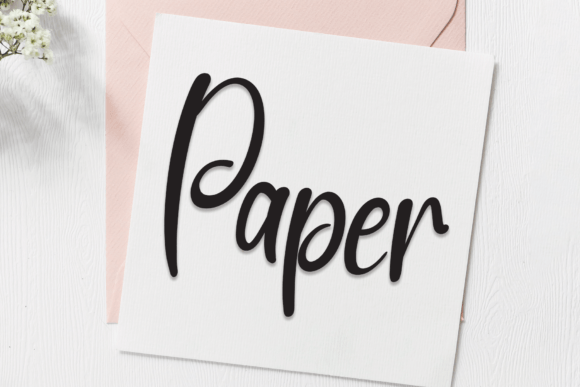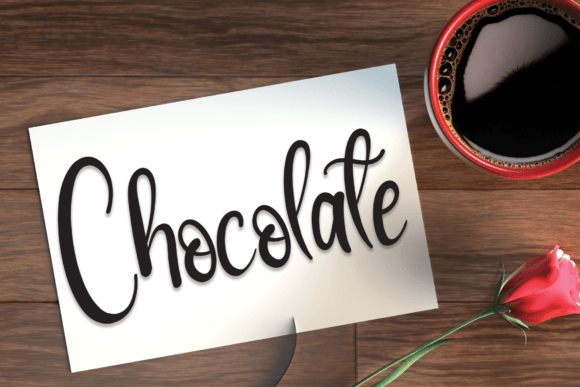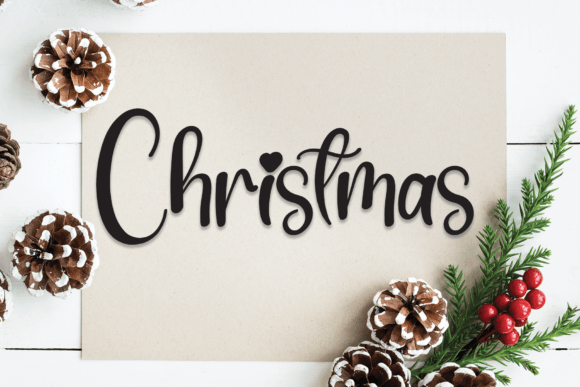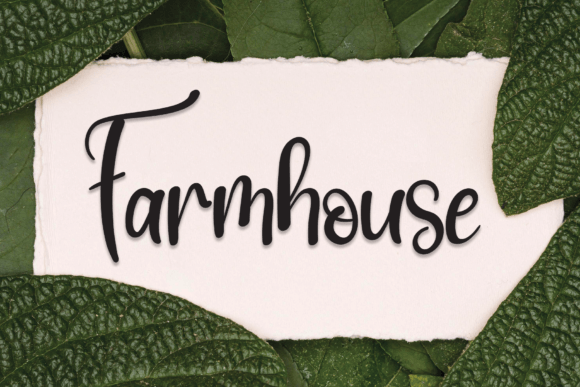
Introduction to Online Font
Online is a simple and friendly handwritten font.
Whether youโre using it for crafts, digital design, presentations, or creating greeting cards, this font has the potential to become your go-to font, whatever the occasion .